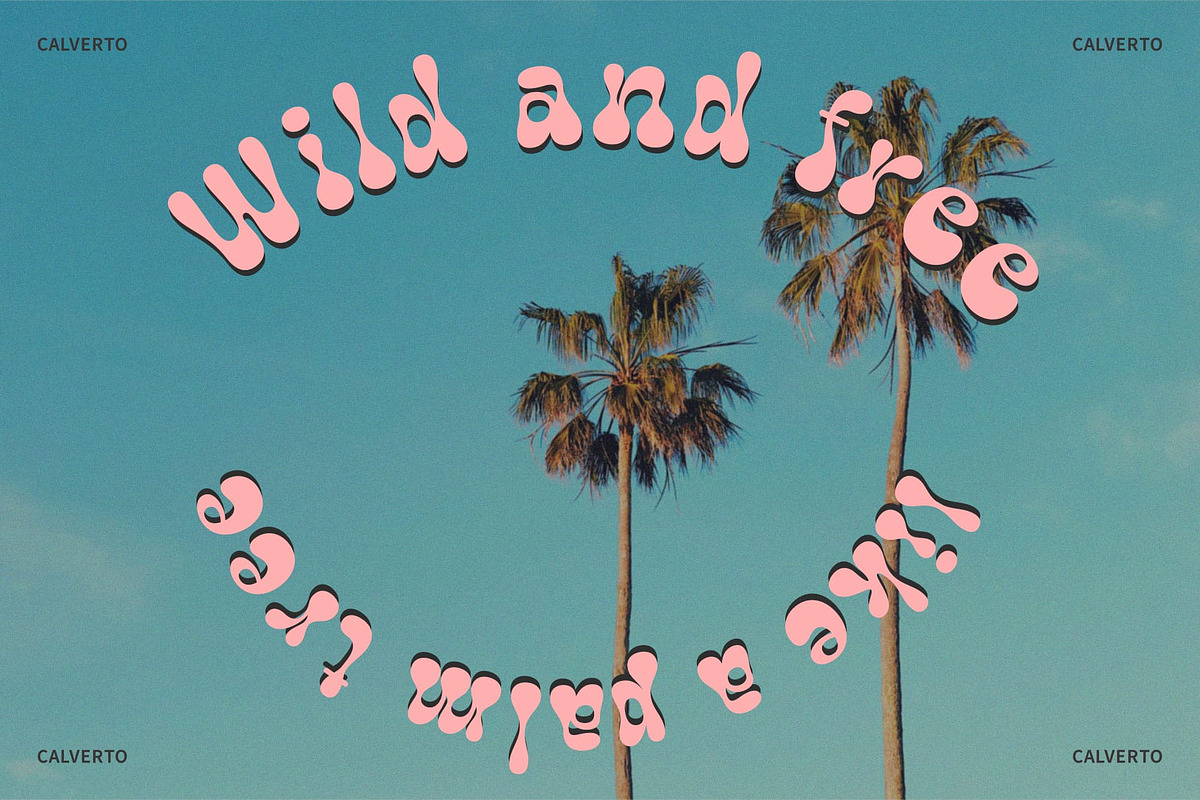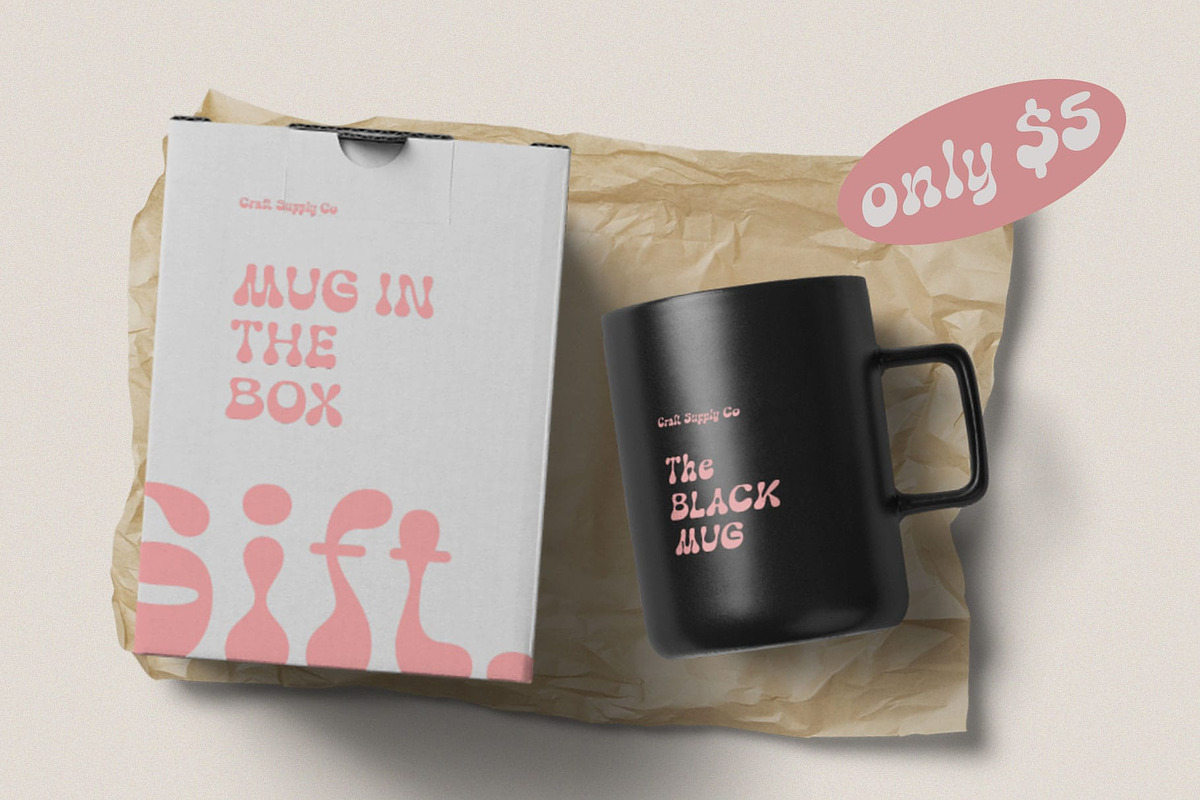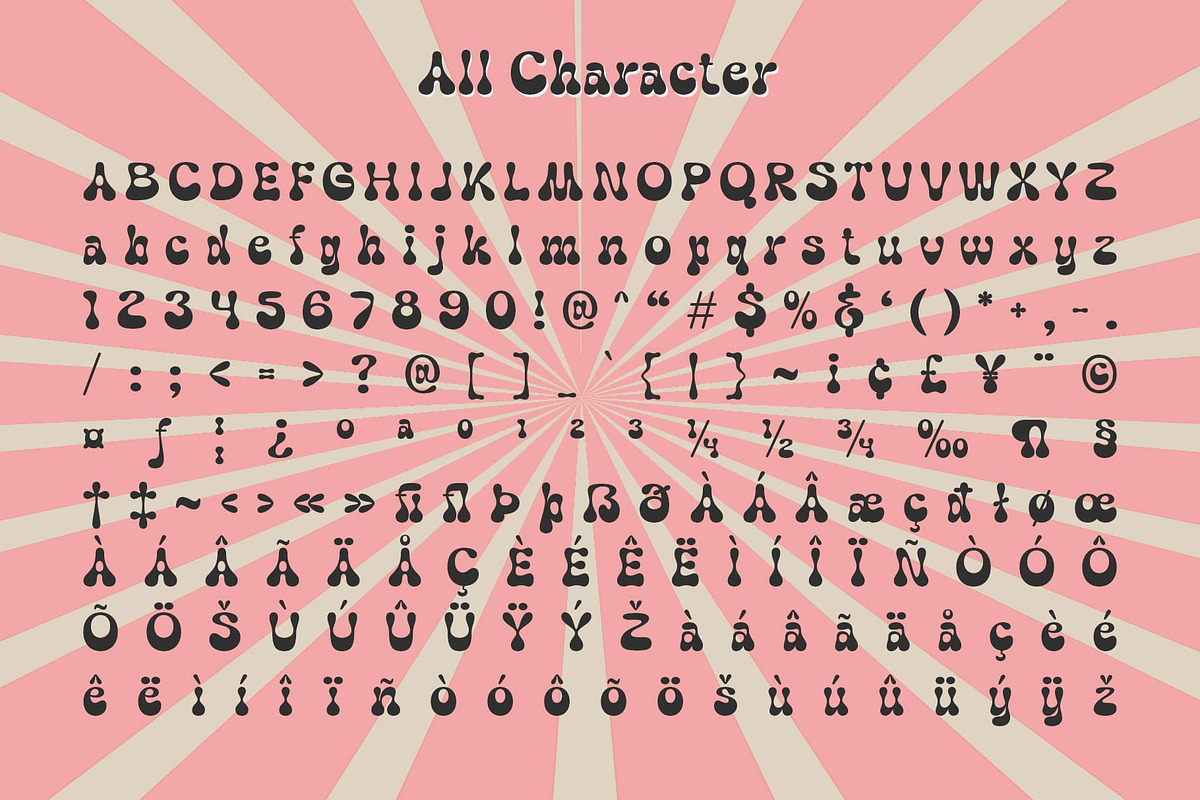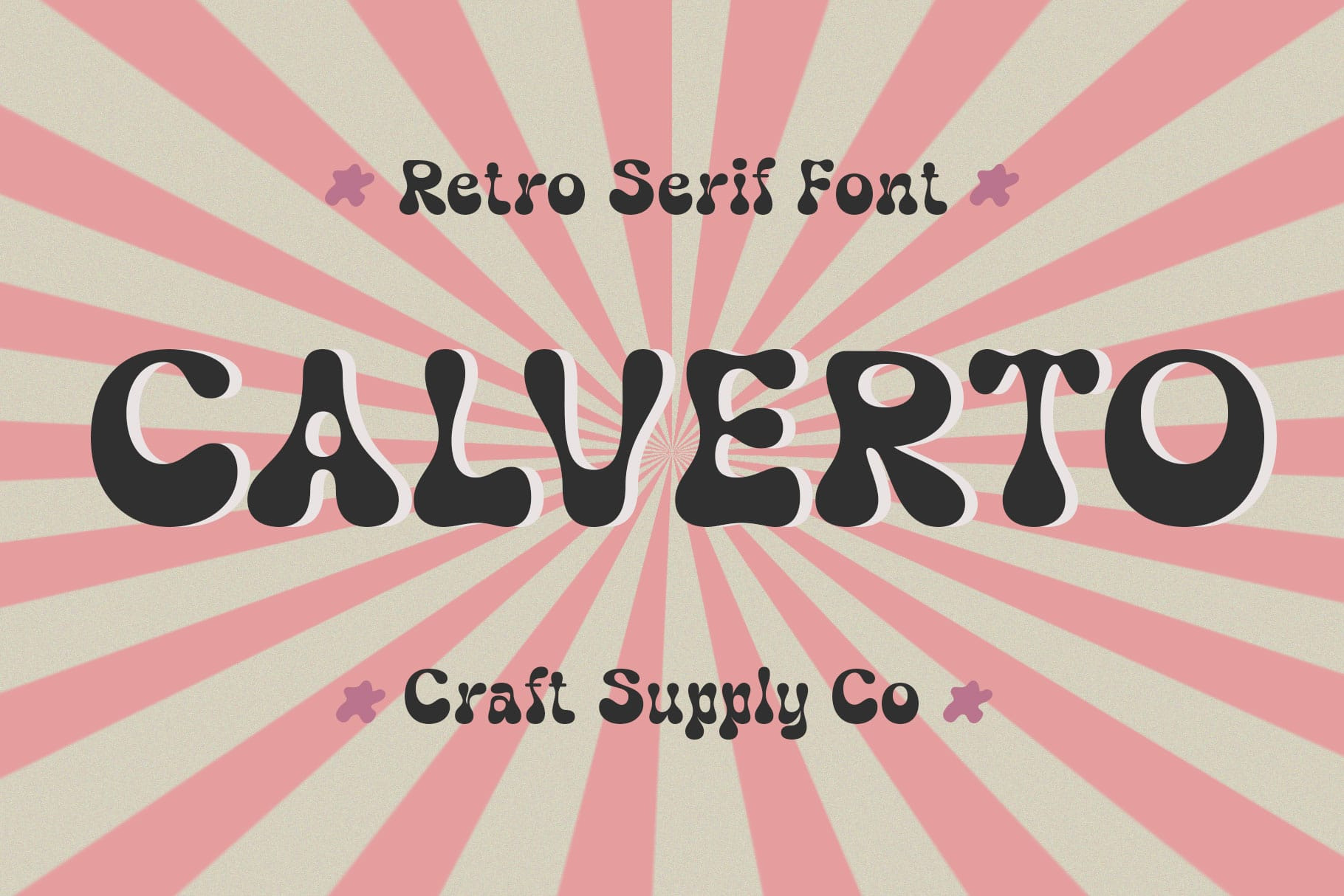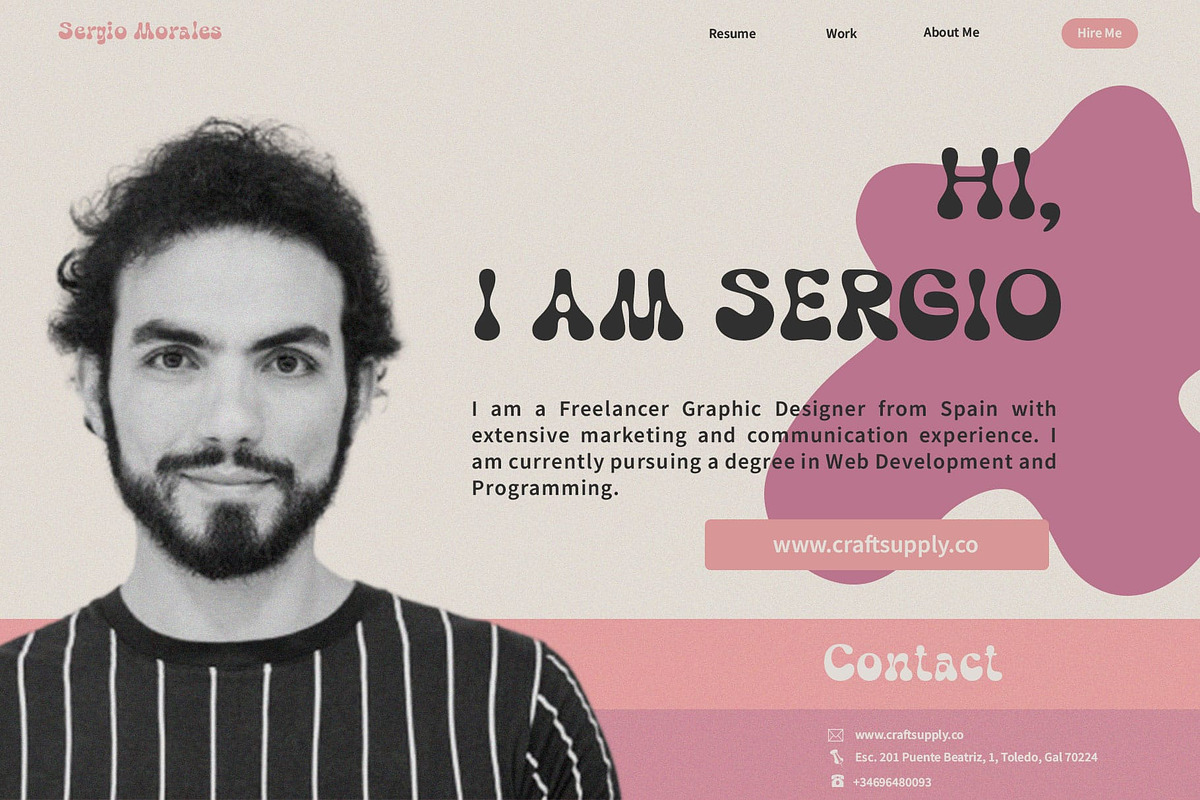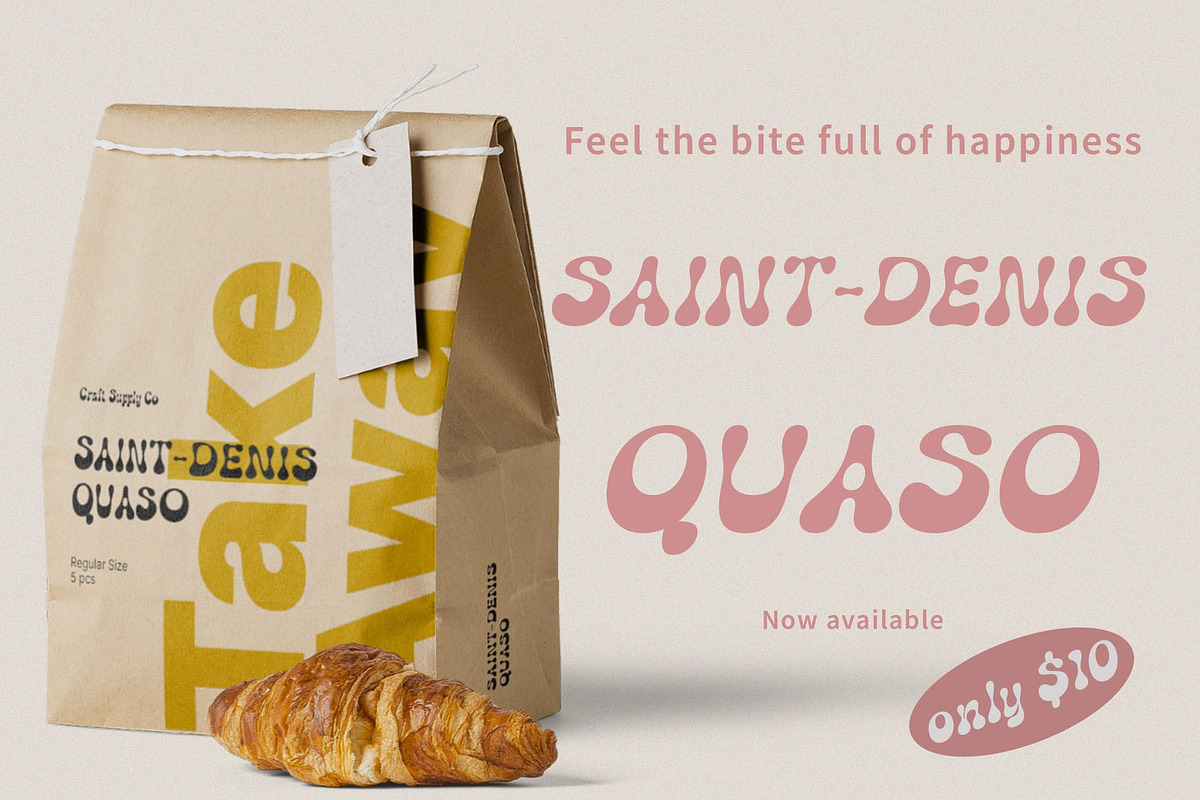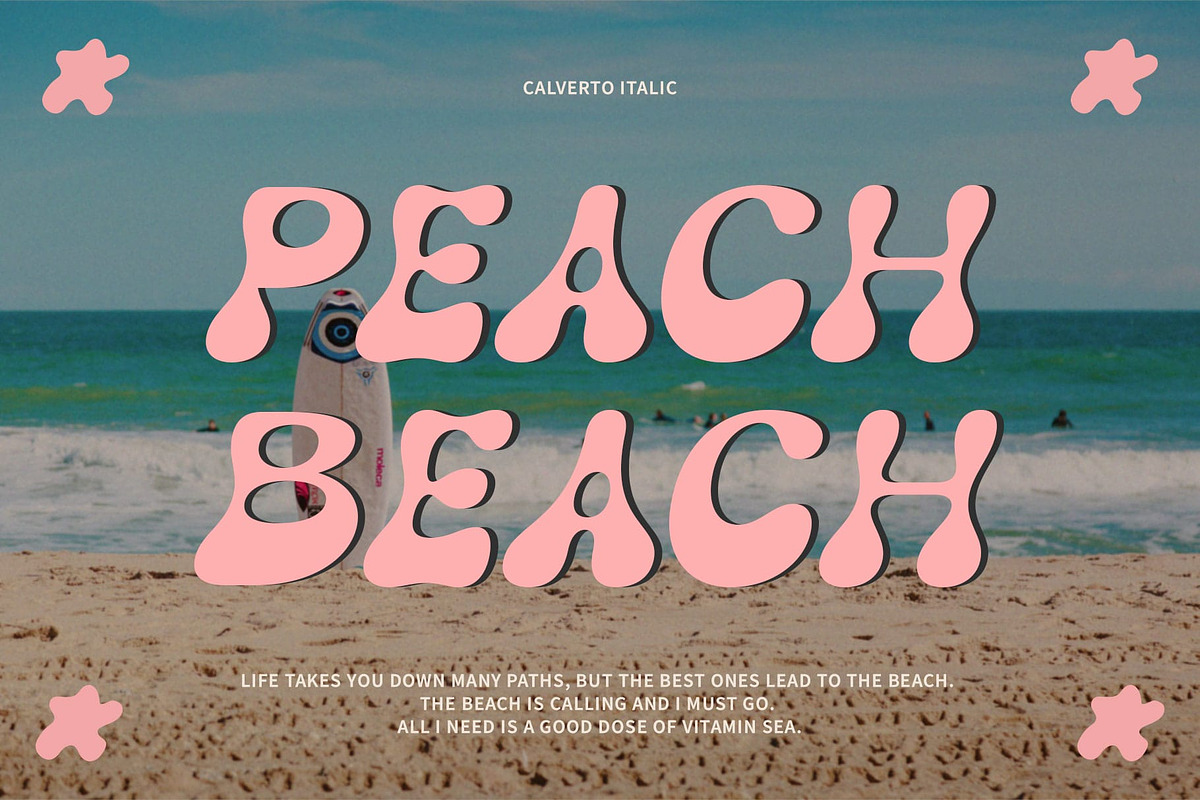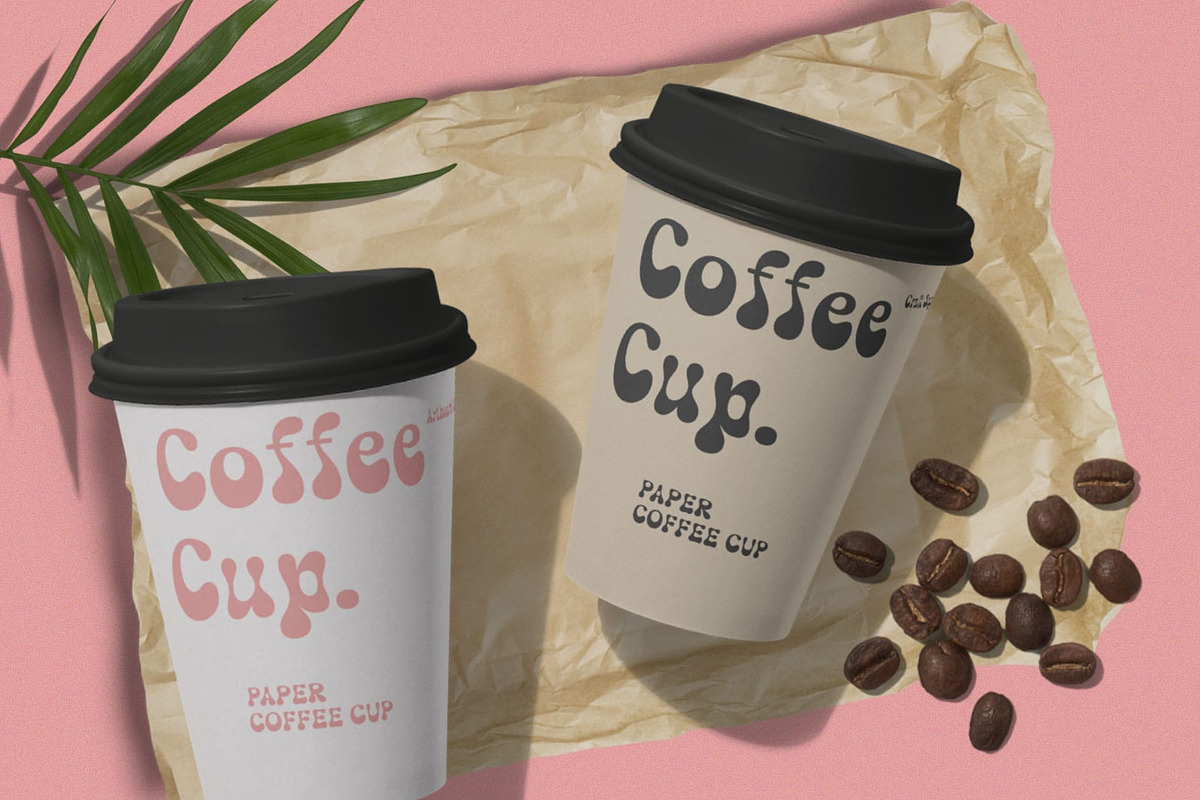
Calverto – Retro Font
Calverto: Embracing Nostalgic Vibes
Groovy Bubble Design Calverto, a display retro font, features a groovy bubble style with rounded edges, evoking a soft and nostalgic feel reminiscent of the ’90s era.
Soft and Nostalgic Appeal Its rounded contours and bubbly appearance infuse This font with a soft and nostalgic charm, transporting users back to the vibrant and carefree days of the 1990s.
Perfect for Retro Designs Calverto’s retro vibe makes it perfect for various design projects that aim to capture the essence of the ’90s. From posters to packaging, its groovy aesthetic adds a playful touch.
Versatile Usage Beyond its nostalgic appeal, This font offers versatility in usage. Whether for branding, social media graphics, or merchandise, its retro bubble font style adds a touch of fun and personality to any project.
Blast from the Past This font with its groovy bubble design and nostalgic charm, is a font that transports users back to the colorful and energetic era of the 1990s. Its rounded edges and soft appearance make it an ideal choice for retro-themed designs, infusing projects with a playful and carefree spirit.